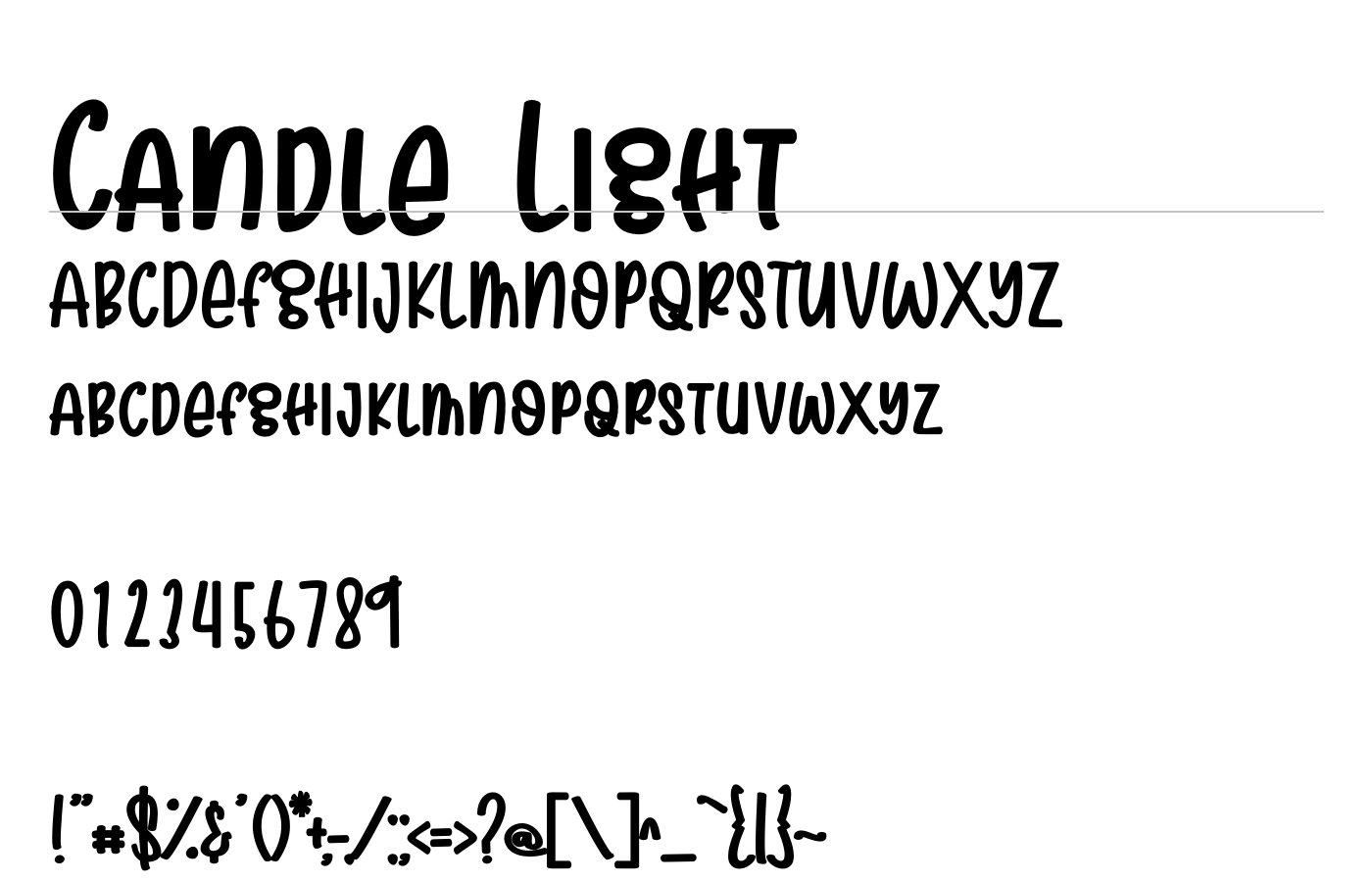
Candle Light is a playful and casual handwritten sans serif font with a friendly, relaxed vibe. Its tall, slightly condensed letterforms with smooth, rounded strokes give it an approachable and informal feel, making it ideal for creative projects like children’s books, greeting cards, and fun branding. This font shines in designs that want to convey warmth and personality without being overly formal.
Candle Light Font
About Candle Light Font